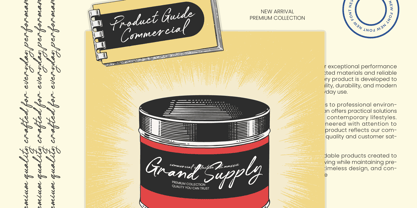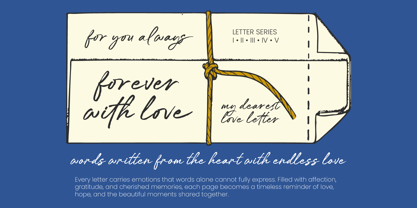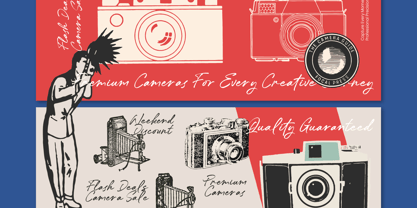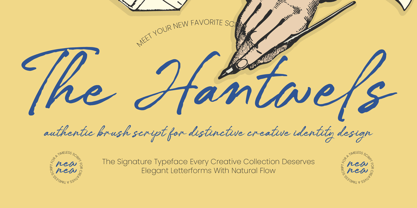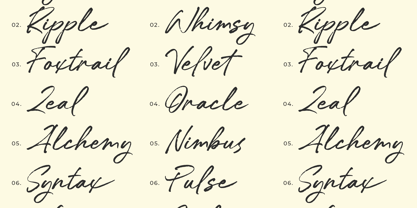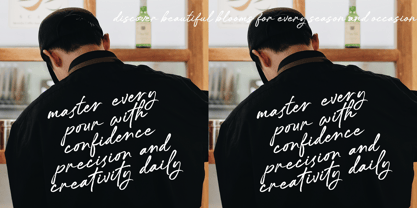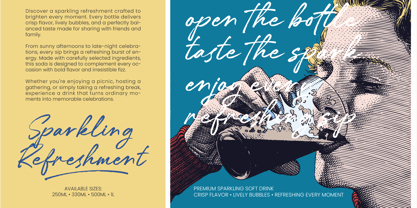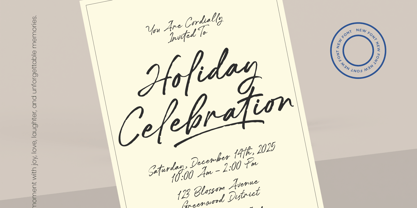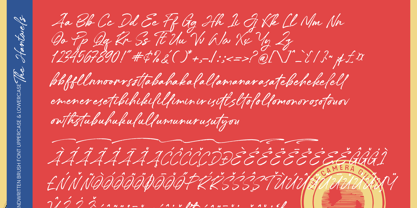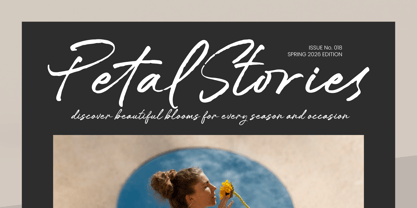
The Hantwels
The The Hantwels Font Family was designed by Heru Utama Putra and published by Letterena Studios. The Hantwels contains 2 styles and family package options. More about this family
The Hantwels - Signature Handwritten Brush Script
Elevate your creative projects with an unmatched sense of authenticity and fluid elegance. The Hantwels - Signature Handwritten Brush Script captures the raw energy of hand-painted strokes, offering a distinctive creative identity that stands out in a crowded market. This authentic brush script features an organic texture and a natural flow, making it an essential asset for designers seeking to convey personality and high-end craftsmanship in every letter.